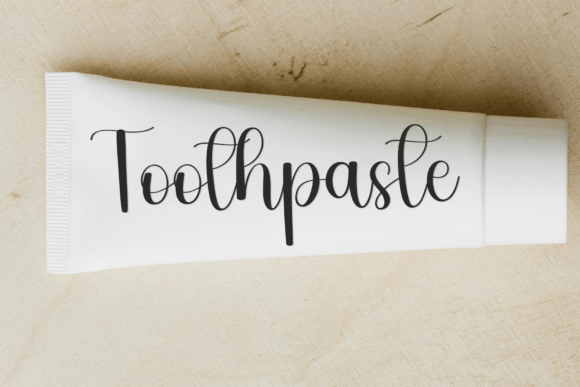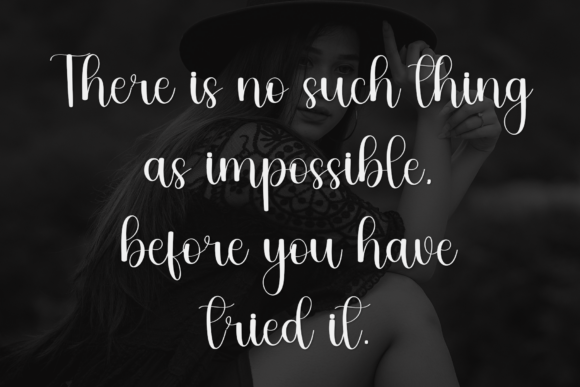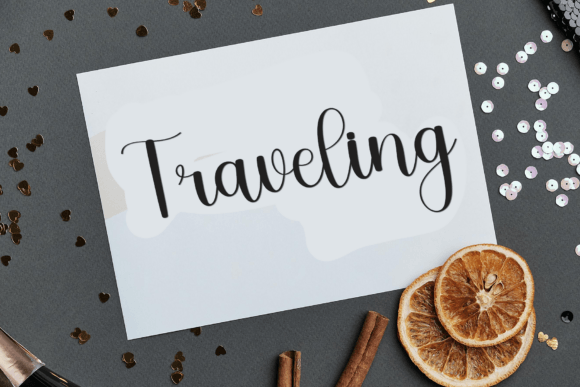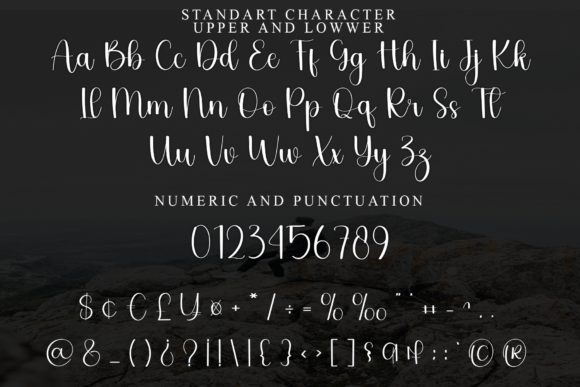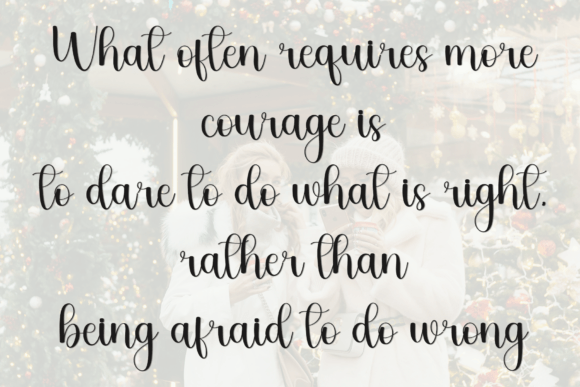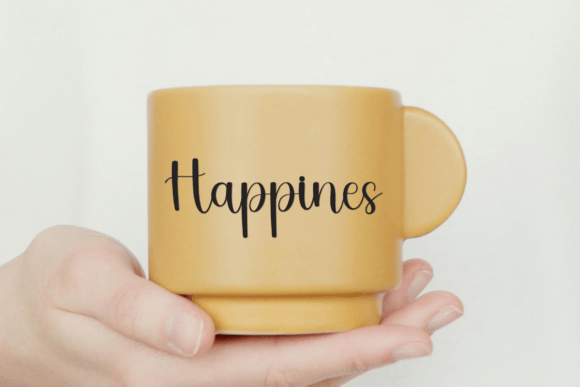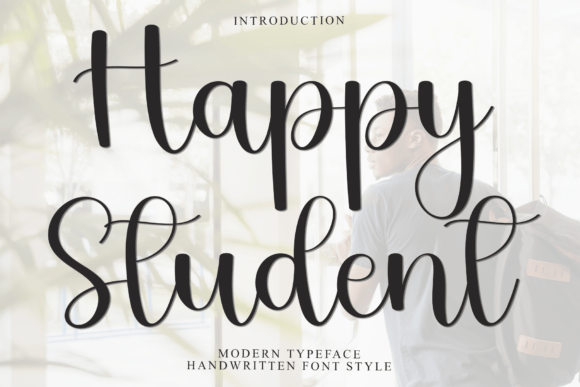
Introducing Happy Student Font: Elevate Your Designs with Elegance and Charm
In the world of typography, a font can make or break a design. For designers and crafters seeking to add a touch of sophistication and elegance to their work, Happy Student Font is an excellent choice. This stylish handwritten script font is designed to exude charm and refinement, making it perfect for a variety of applications, from branding and invitations to stationery and more.
The Characteristics of Happy Student Font
Happy Student Font boasts fluid, graceful strokes that give it a unique and captivating appearance. Its smooth curves and natural flow create a timeless, refined look that can elevate any design. The font’s elegant and charming aesthetic makes it an excellent choice for designers looking to add a personal touch to their work.
Perfect for Branding, Invitations, and Stationery
Whether you’re working on a branding project, designing invitations, or creating stationery, Happy Student Font is an excellent choice. Its sophisticated and elegant appearance makes it perfect for:
- Branding: Establish your brand’s identity with a unique and memorable font that reflects your values and personality.
- Invitations: Create beautiful and elegant invitations for special occasions, such as weddings, birthdays, and graduations.
- Stationery: Add a touch of sophistication to your stationery, including letterheads, business cards, and thank-you cards.
Why Choose Happy Student Font?
With so many fonts available, why choose Happy Student Font? Here are just a few reasons:
- Unique and Elegant: Happy Student Font offers a distinctive and refined aesthetic that sets it apart from other fonts.
- Versatile: The font is suitable for a wide range of applications, from digital designs to print materials.
- Easy to Read: Despite its elegant appearance, Happy Student Font is easy to read, making it perfect for body text and headlines.
- Timeless: The font’s classic design ensures that it will remain stylish and relevant for years to come.
Tips for Using Happy Student Font
To get the most out of Happy Student Font, here are a few tips:
- Pair it with a sans-serif font: Combine Happy Student Font with a clean sans-serif font to create a beautiful contrast.
- Use it for headlines and titles: Take advantage of the font’s elegant appearance by using it for headlines and titles.
- Experiment with colors: Try pairing the font with different colors to create a unique and eye-catching design.
In conclusion, Happy Student Font is an excellent choice for designers and crafters seeking to add a touch of elegance and charm to their work. With its fluid, graceful strokes and timeless, refined appearance, this stylish handwritten script font is perfect for branding, invitations, stationery, and more. Whether you’re looking to create a sophisticated brand identity or a beautiful invitation, Happy Student Font is sure to impress.